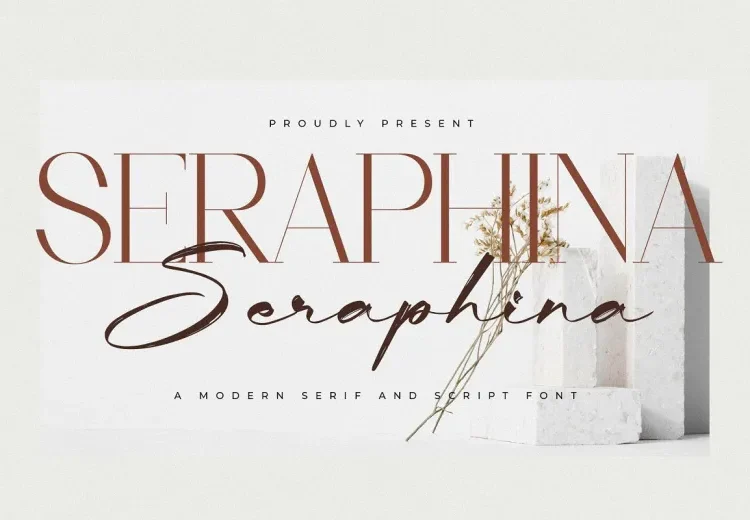
Seraphina Font Duo
Seraphina Font Duo by Storytype offers a sophisticated blend of serif and script typefaces, each with its distinct style and contemporary flair. This versatile duo is ideal for creating elegant and stylish designs across a wide range of applications. Whether you’re working on logos, book or movie titles, fashion branding, magazine covers, clothing labels, quotes, or other creative projects, Seraphina ensures a polished and impressive presentation.
Key Features of Seraphina Font Duo:
• Elegant Serif & Script Combination: The duo includes both a refined serif and a graceful script font, providing a perfect balance of classic and modern styles.
• Versatile Applications: Ideal for a variety of uses, including luxury branding, editorial design, fashion, and more.
• Contemporary Appeal: Each typeface is designed with a modern touch, making it suitable for today’s design needs.
• Impressive Presentation: Whether used together or separately, Seraphina brings a sophisticated and elegant look to your projects.
Ideal Uses for Seraphina Font Duo:
• Classy Logos: Create striking and memorable logos that stand out with a touch of elegance.
• Book & Movie Titles: Perfect for titles that need to make a statement with a blend of sophistication and style.
• Fashion Branding: Enhance your fashion labels, clothing lines, and accessories with a chic and contemporary look.
• Magazine Covers: Add a touch of class to your magazine covers and editorial designs with this versatile duo.
• Quotes & More: Use Seraphina for stylish quotes, invitations, and other creative designs.